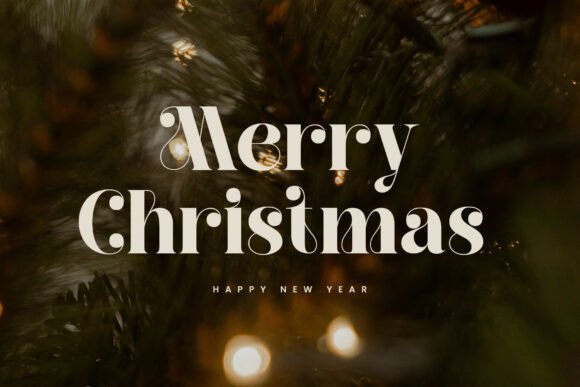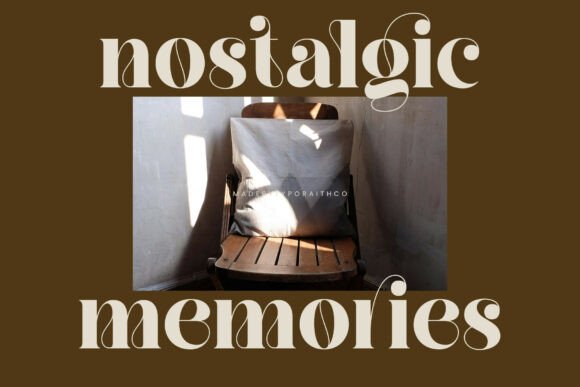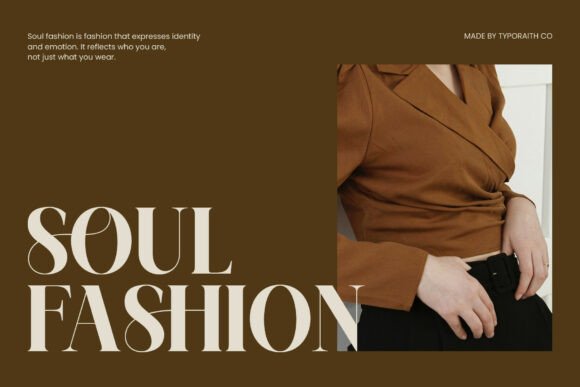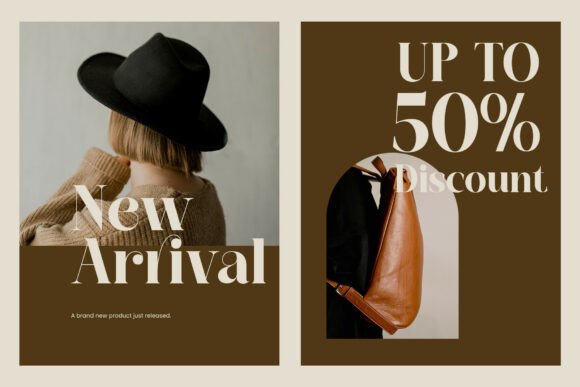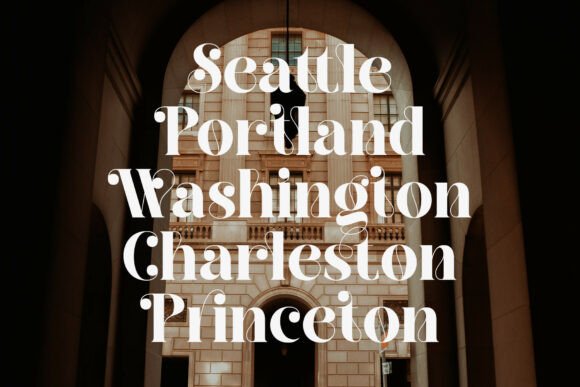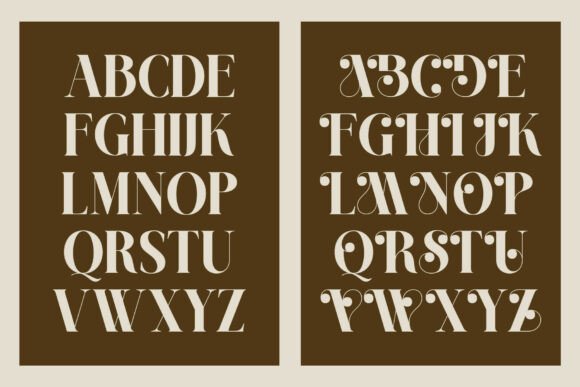
Introducing Belgina Font: Elevate Your Designs with Elegance and Sophistication
In the world of typography, a font can make or break the visual identity of a design. For designers and crafters seeking to create premium visuals with a strong and luxurious character, Belgina Font is an exceptional choice. This modern serif typeface is crafted with elegance and sophistication in mind, delivering a timeless yet contemporary feel that elevates any design to new heights.
The Distinctive Features of Belgina Font
Belgina Font boasts refined letterforms, high-contrast strokes, and graceful curves that bring a touch of luxury to any design. Its stylish details and classy appearance make it perfect for designers who want to add personality and exclusivity to their work while maintaining cleanliness and readability. Whether you’re working on fashion branding, editorial layouts, logos, wedding designs, product packaging, or social media visuals, Belgina Font is an excellent choice.
Crafting a Timeless yet Contemporary Feel
One of the standout features of Belgina Font is its ability to balance timelessness with contemporaneity. The font’s classic serif design ensures that it remains relevant and elegant, while its modern twists and refined details keep it fresh and current. This balance makes Belgina Font incredibly versatile, suitable for a wide range of design applications where a sophisticated look is desired.
Perfect for High-End Design Applications
Belgina Font shines in high-end design applications where luxury and sophistication are paramount. For fashion branding, the font’s elegant and refined appearance helps create a strong and memorable visual identity. In editorial layouts, Belgina Font adds a touch of class and sophistication, enhancing the overall reading experience. For logos, wedding designs, and product packaging, the font’s unique character and stylish details make it an excellent choice for standing out in a crowded market.
Enhancing Social Media Visuals with Belgina Font
In the realm of social media, capturing attention and conveying a sense of luxury can be challenging. Belgina Font offers a solution with its classy and sophisticated appearance, making it perfect for social media visuals. Whether you’re creating graphics for Instagram, Facebook, or Twitter, Belgina Font helps elevate your content, making it more engaging and visually appealing to your audience.
Why Choose Belgina Font?
There are several reasons why Belgina Font stands out as a top choice for designers and crafters:
- Elegance and Sophistication: Belgina Font is designed to bring a touch of luxury and sophistication to any design.
- Versatility: Suitable for a wide range of design applications, from fashion branding to social media visuals.
- Readability: Despite its elegant and refined appearance, Belgina Font remains clean and readable.
- Uniqueness: Offers a unique character that helps designs stand out.
| Font Name | Belgina Font |
| Author | Typoraith Co |
Belgina Font is a powerful tool for designers and crafters looking to infuse their work with elegance, sophistication, and a touch of luxury. Its modern serif design, refined letterforms, and high-contrast strokes make it perfect for creating premium visuals with a strong identity. Whether you’re working on fashion branding, editorial layouts, logos, wedding designs, product packaging, or social media visuals, Belgina Font is an excellent choice for elevating your designs and making a lasting impression.